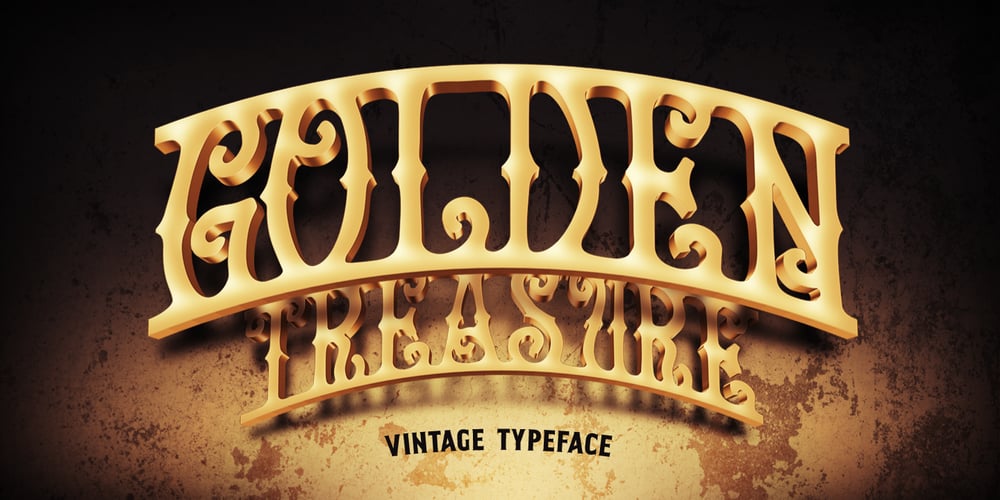
Golden Treasure Font Family was designed by Gleb Guralnyk and published by Gleb Guralnyk. Golden Treasure contains 1 styles and family package options. Golden Treasure is a vintage font with an original, decorative look and seamless connected letters. All available characters you can see on the 5th screenshot.Thank you and have a great day!